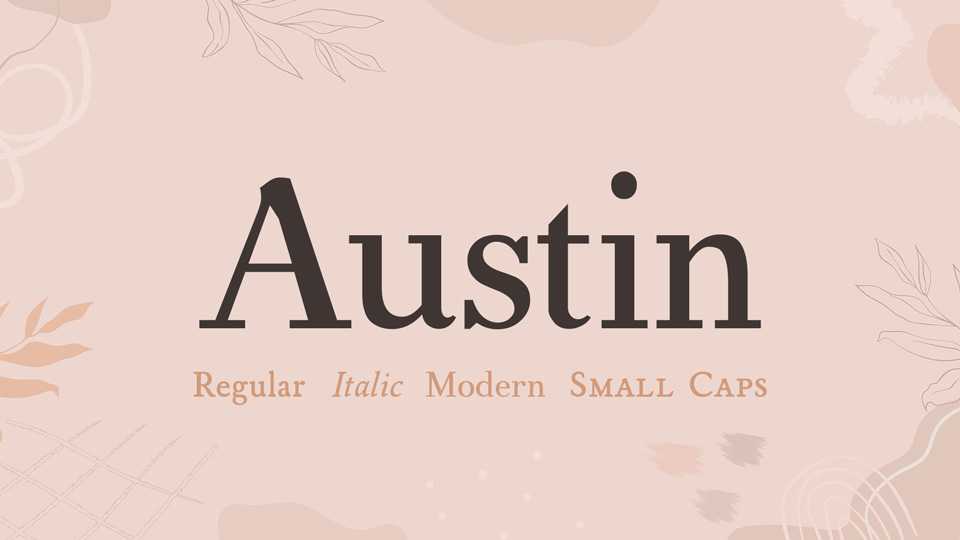
Download Austin typeface, a serif font family based on Caslon, and to a lesser extent, Bell. Austin type family comes in Regular and Italic, Small Caps, including Modern style. It works best for publishing text.